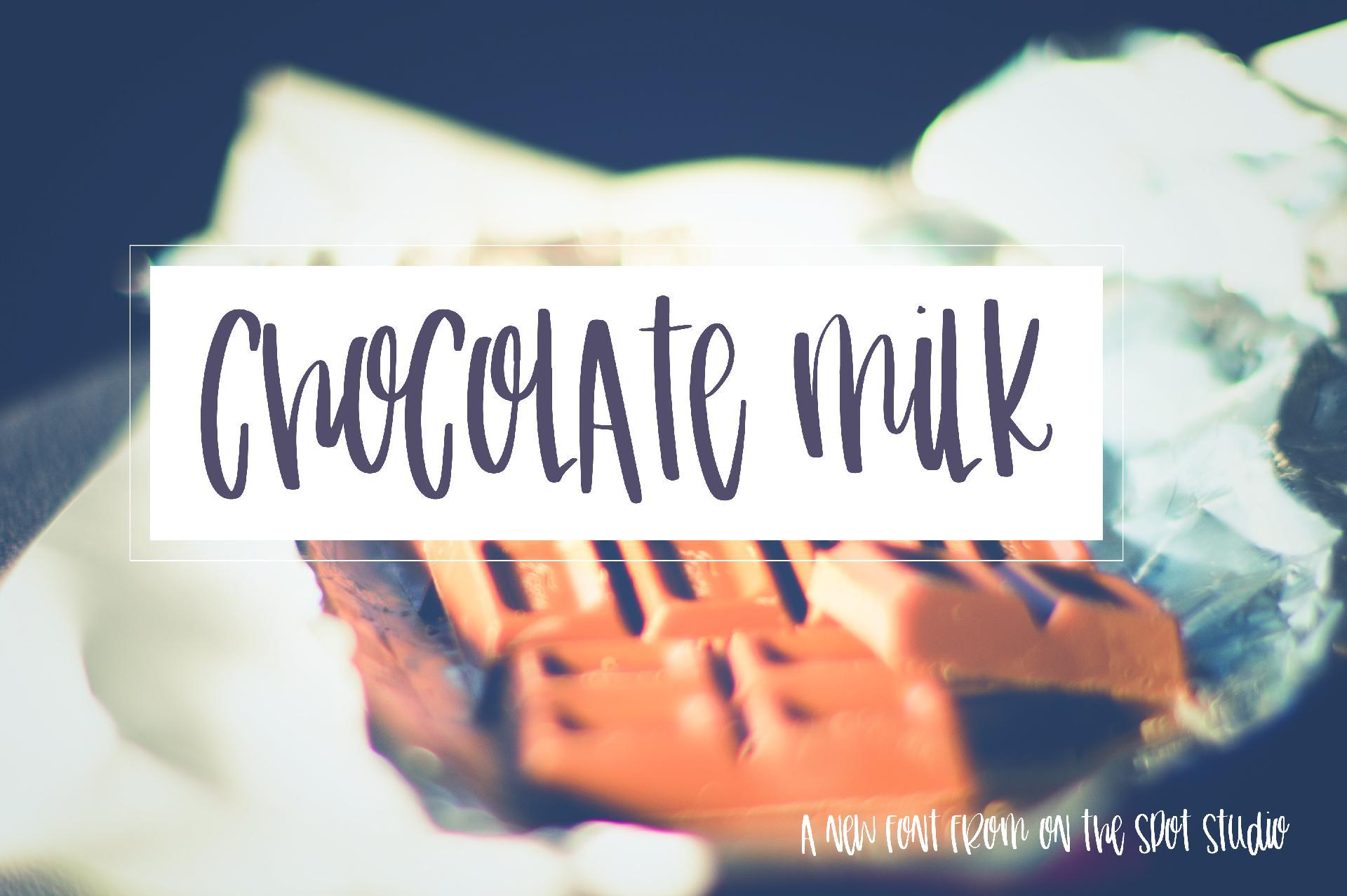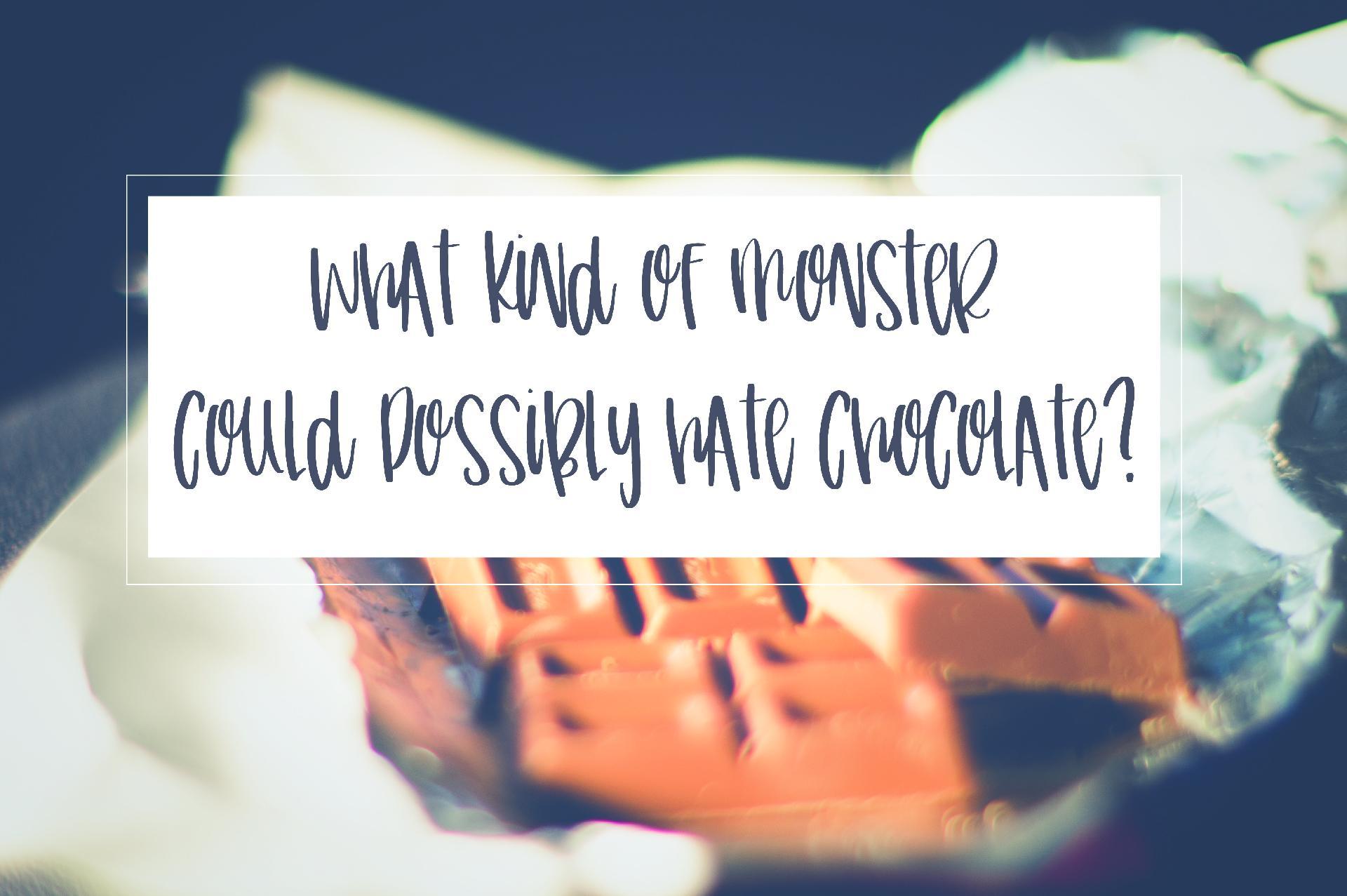
HomeScript FontsChocolate Milk Script Fonts Chocolate Milk FacebookXPinterestWhatsApp 1 of 3 ... ... ... About Chocolate Milk Introducing Chocolate Milk, a fun and quirky mixed case font! Great for your projects! DOWNLOAD NOW People also explored Snowball Font Hey Magnolia Font Dream Candy Font Oh Juliet Font Selvia Cahya Font Slowly Font Little Mess Font Clementine Script Monatic Font 209 0 TagsChocolate Milk Previous articleLolabelleNext articleGirlchild LEAVE A REPLY Cancel reply Comment: Please enter your comment! Name:* Please enter your name here Email:* You have entered an incorrect email address! Please enter your email address here Website: Save my name, email, and website in this browser for the next time I comment. Personal Use Free Xplor Personal Use Free Read more about this font Black Personal Use Free Read more about this font Gaboed Personal Use Free Read more about this font BD TinyFont Personal Use Free Read more about this font BLOG How to Install and Use Fonts on Windows, macOS, and Web Projects How to Install and Use Fonts on Windows, macOS, and Web Projects Fonts are a crucial part of design and branding. Whether you’re designing a... Elegant Wedding Invitation Fonts – Handwritten & Script Fonts Free vs Paid Fonts: Why Investing in Premium Fonts Is Worth It Fonts That Capture the Spirit of New York City